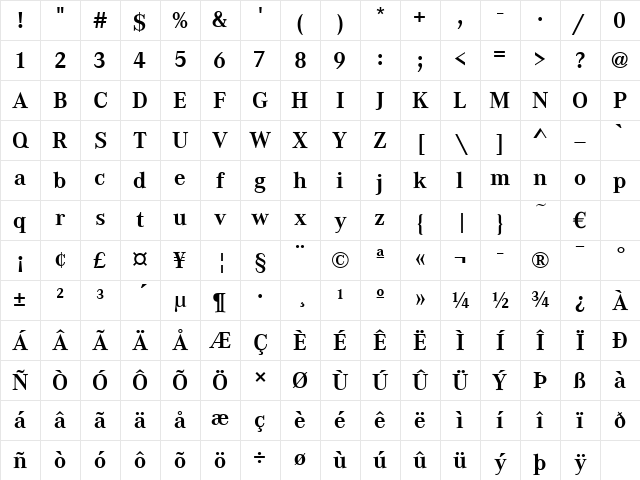
Complete CorpoADem Bold glyph index. Displaying only characters natively supported by CorpoADem Bold font.
CorpoADem is a composed and adaptable typeface that performs quietly and consistently across a wide range of design contexts. Its bold stroke weight gives it real presence on the page.